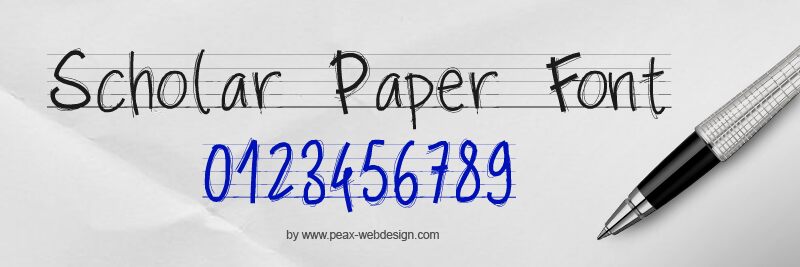
PW Scolarpaper by Peax Webdesign is a free school-style handwritten font with the restless look of notebook scrawls. Uneven strokes shift between solid black marks and loose doubled lines, leaving a deliberately unfinished edge. The tall, narrow forms lean and wobble from letter to letter.
Ruled-paper graphics, pencil doodles, and classroom illustrations echo its scratchy construction, making it useful for school posters and educational worksheets. It also suits youth event flyers and informal packaging. Its strongest role is classroom-themed publishing, where the lettering becomes part of the page's drawn-on surface.